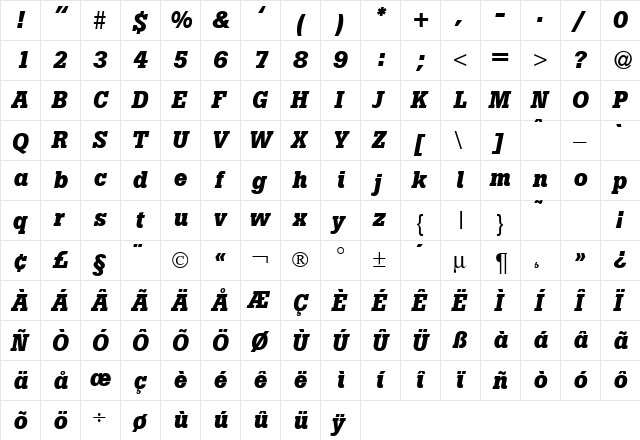
BotanDB Italic Font Preview
BotanDB Italic
Design Context for BotanDB Typeface
BotanDB takes a measured approach to typography — its balanced proportions and neutral character make it a reliable workhorse for both digital and print work. The dynamic lean of this cut emphasises speed and emphasis in any layout.
Pro Tip: Try BotanDB for annotation and caption copy alongside an upright companion — the contrast in angle creates a dynamic but ordered typographic system.